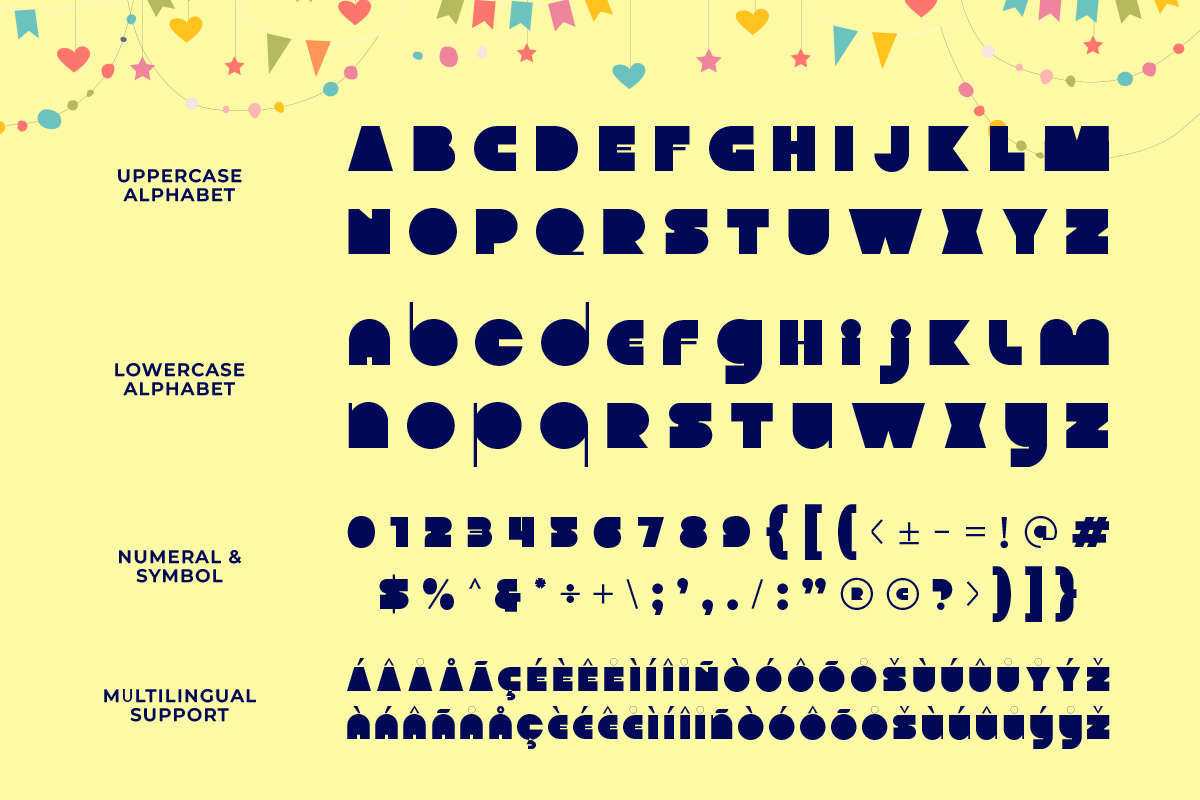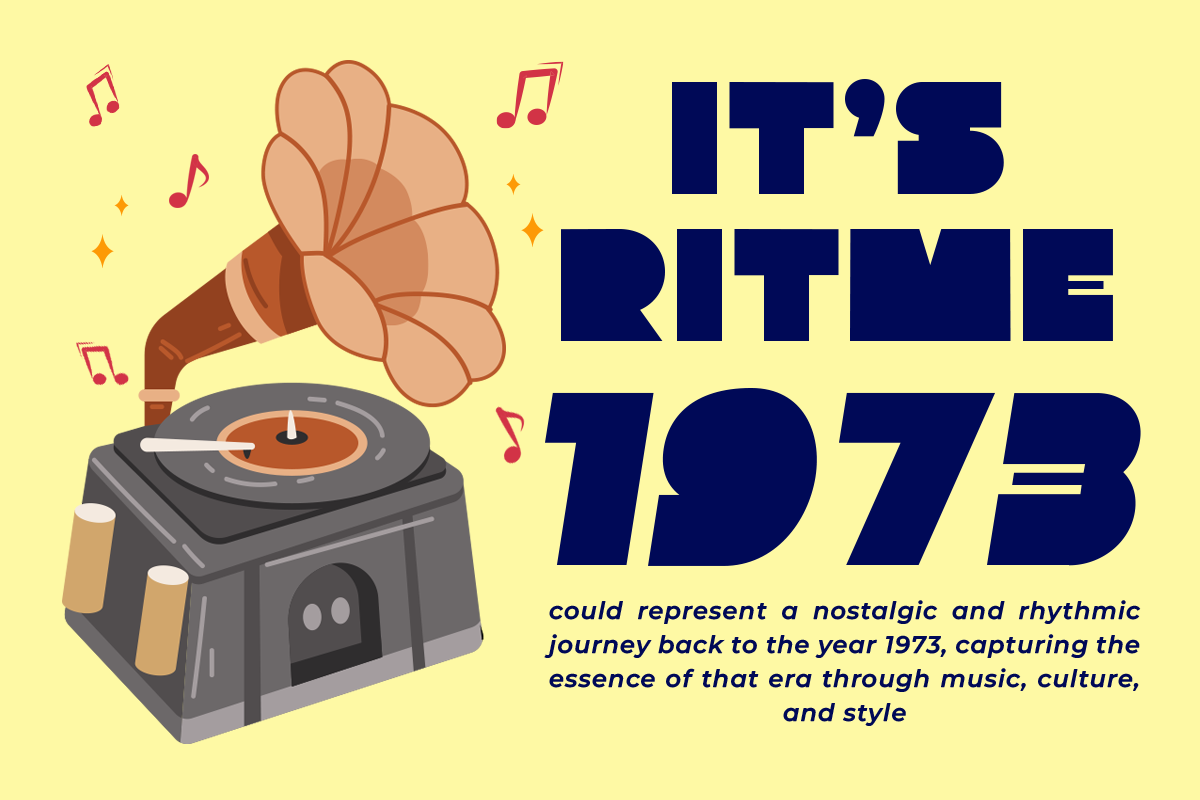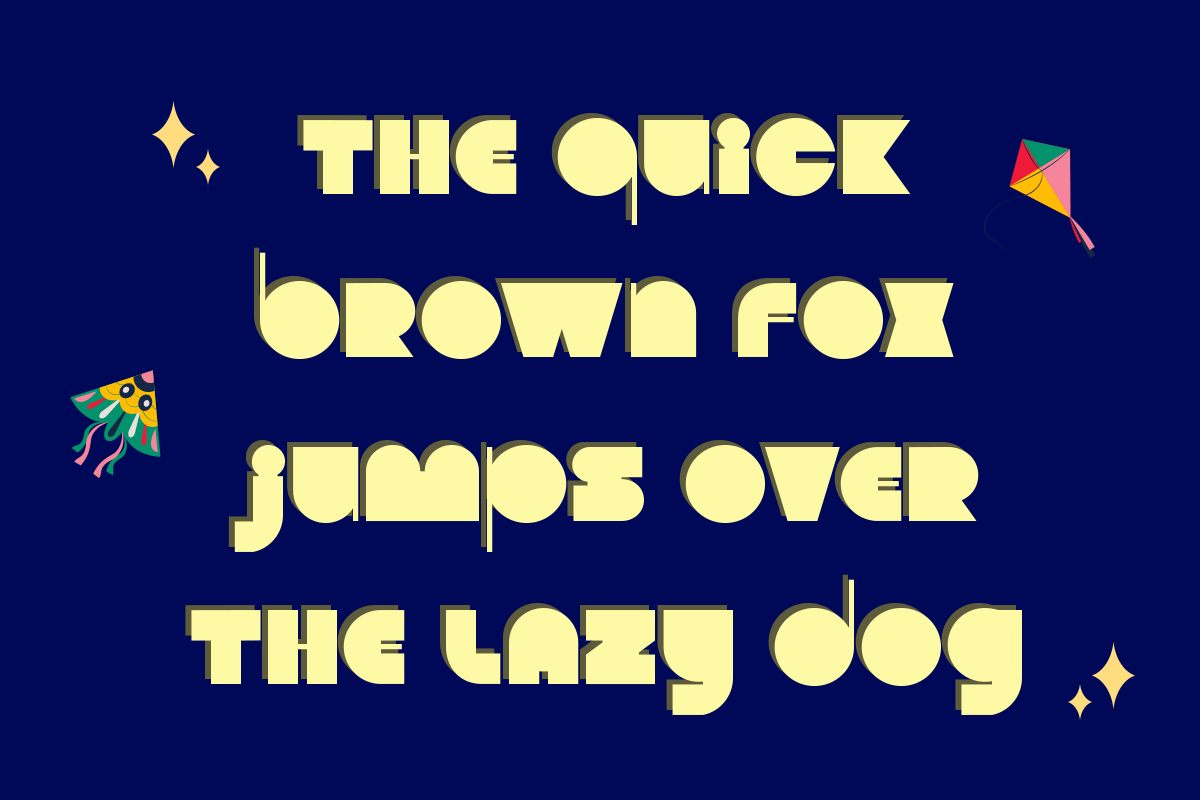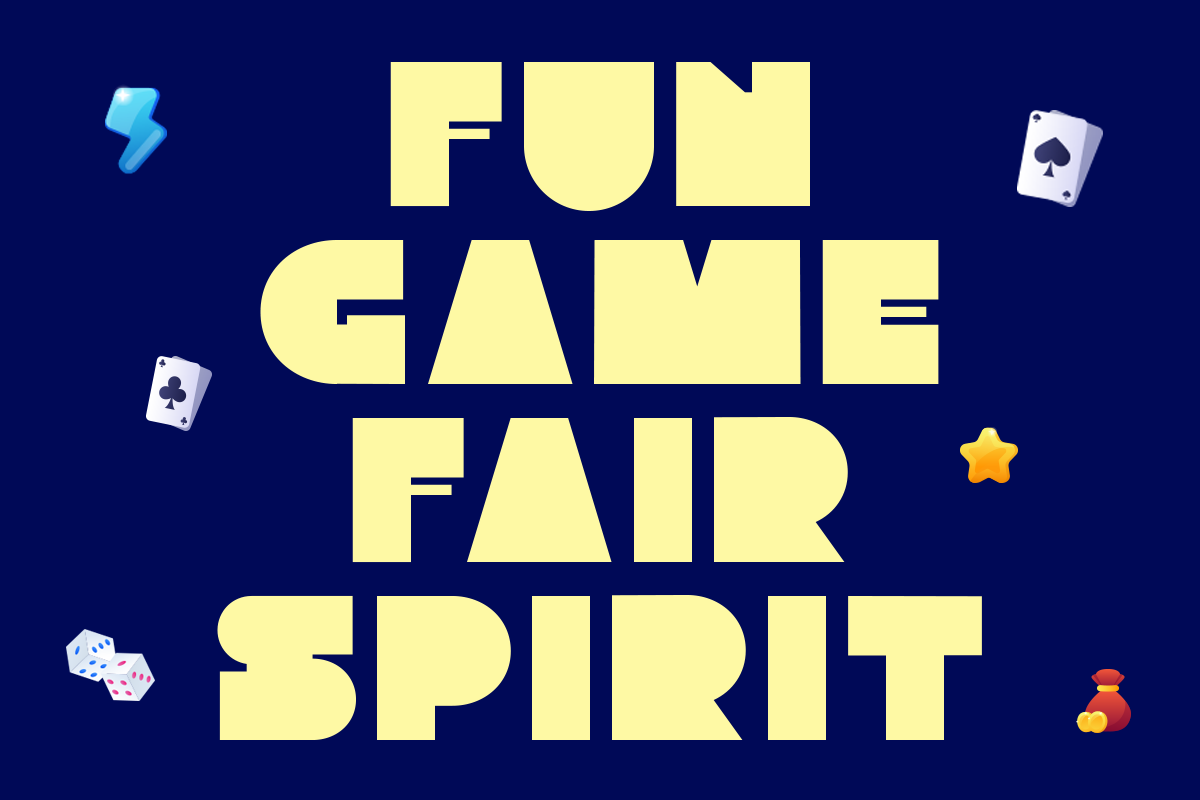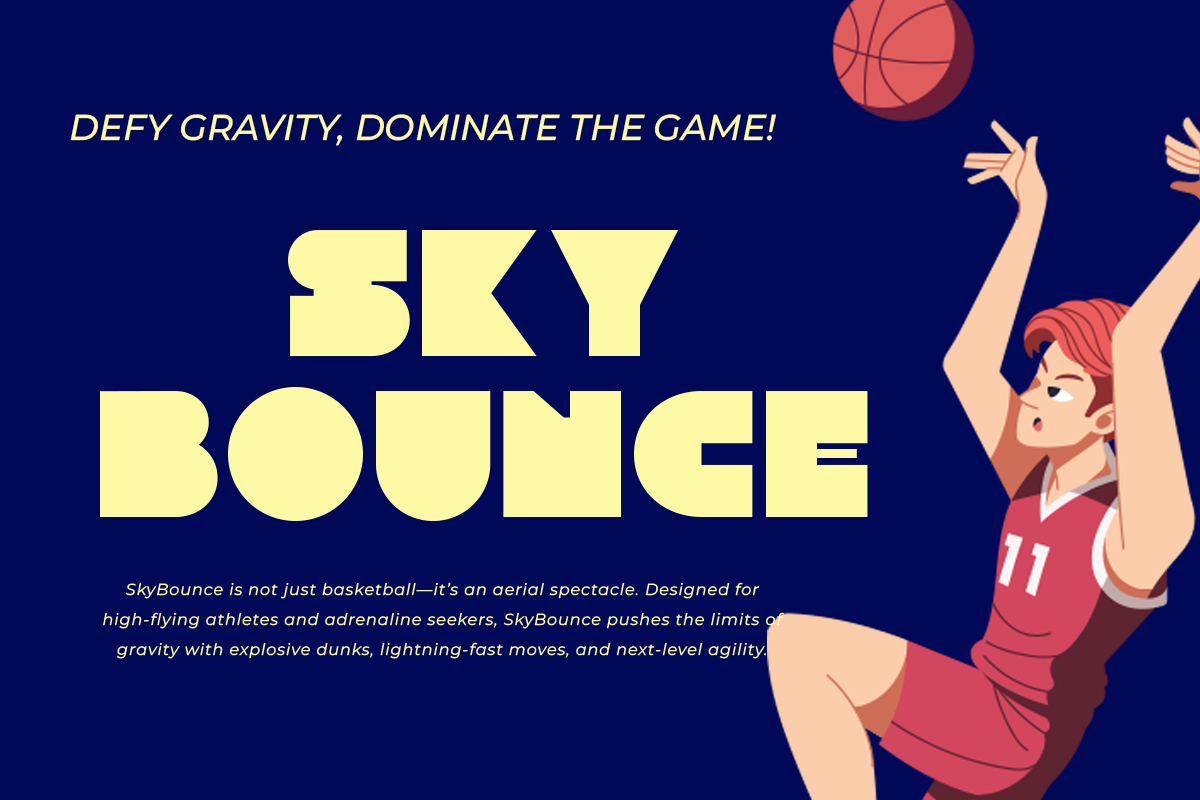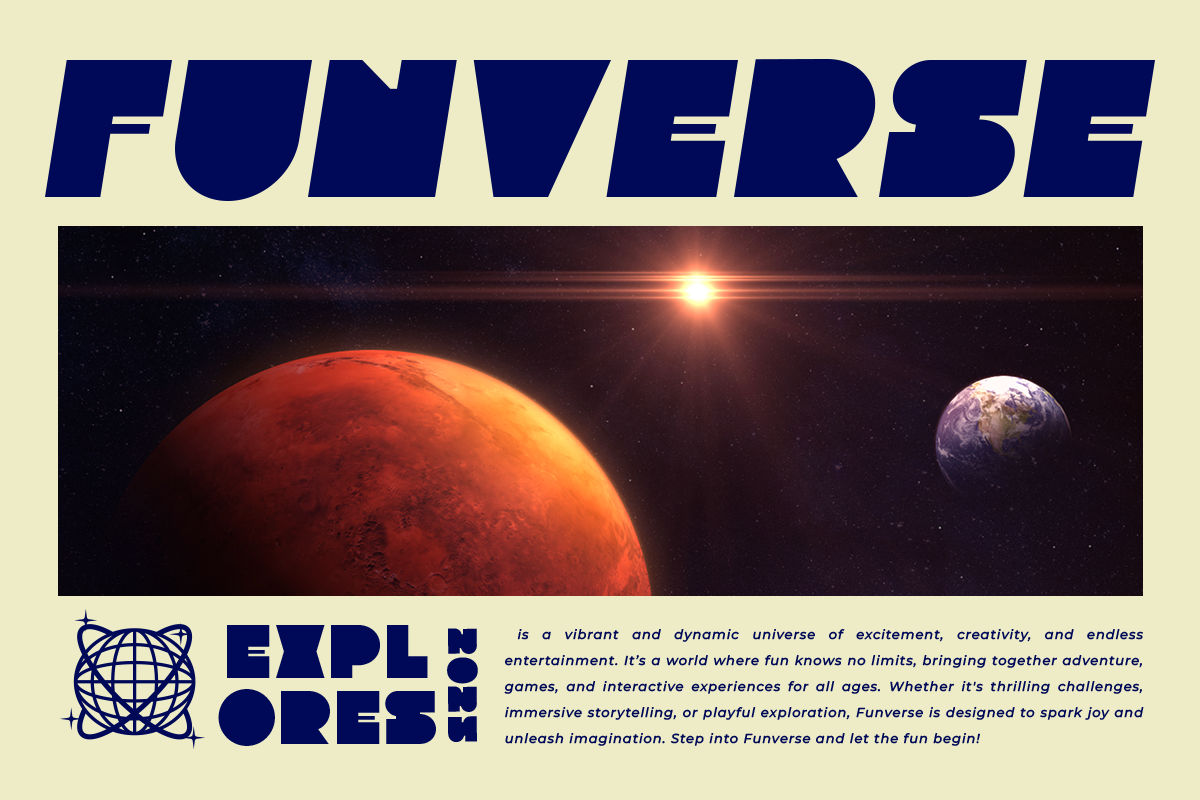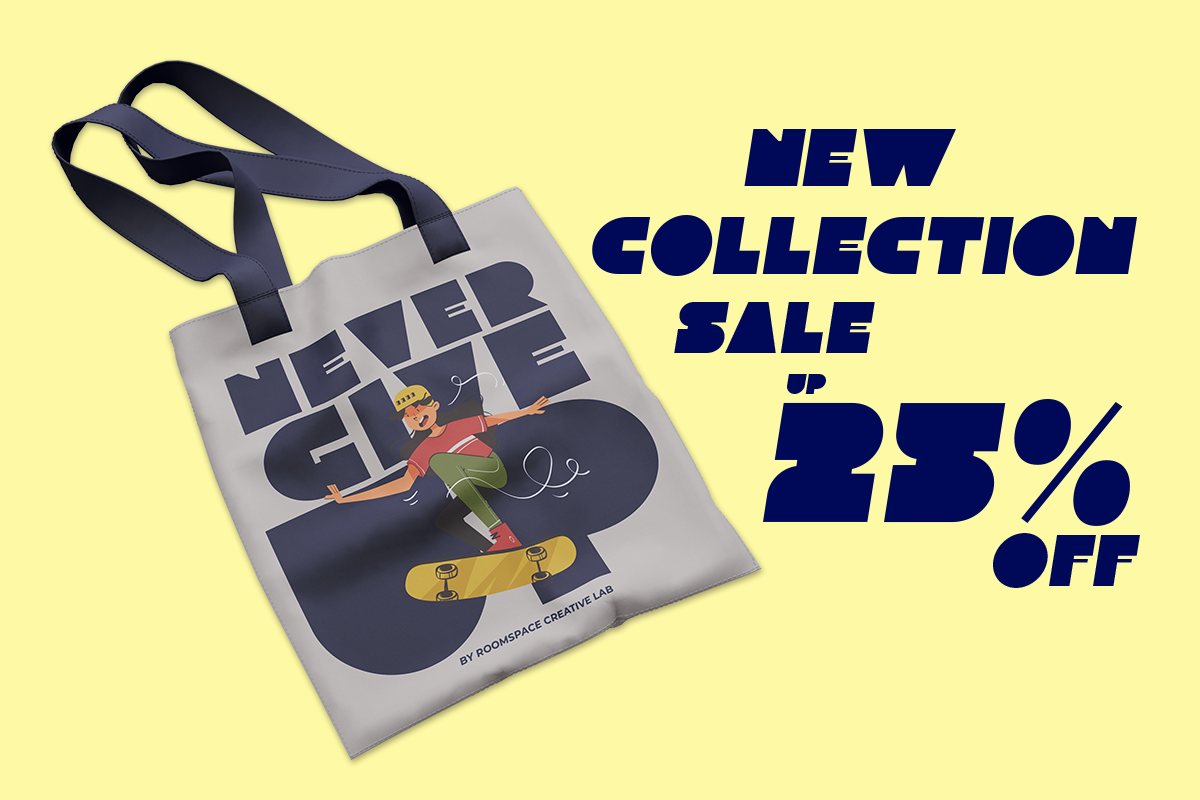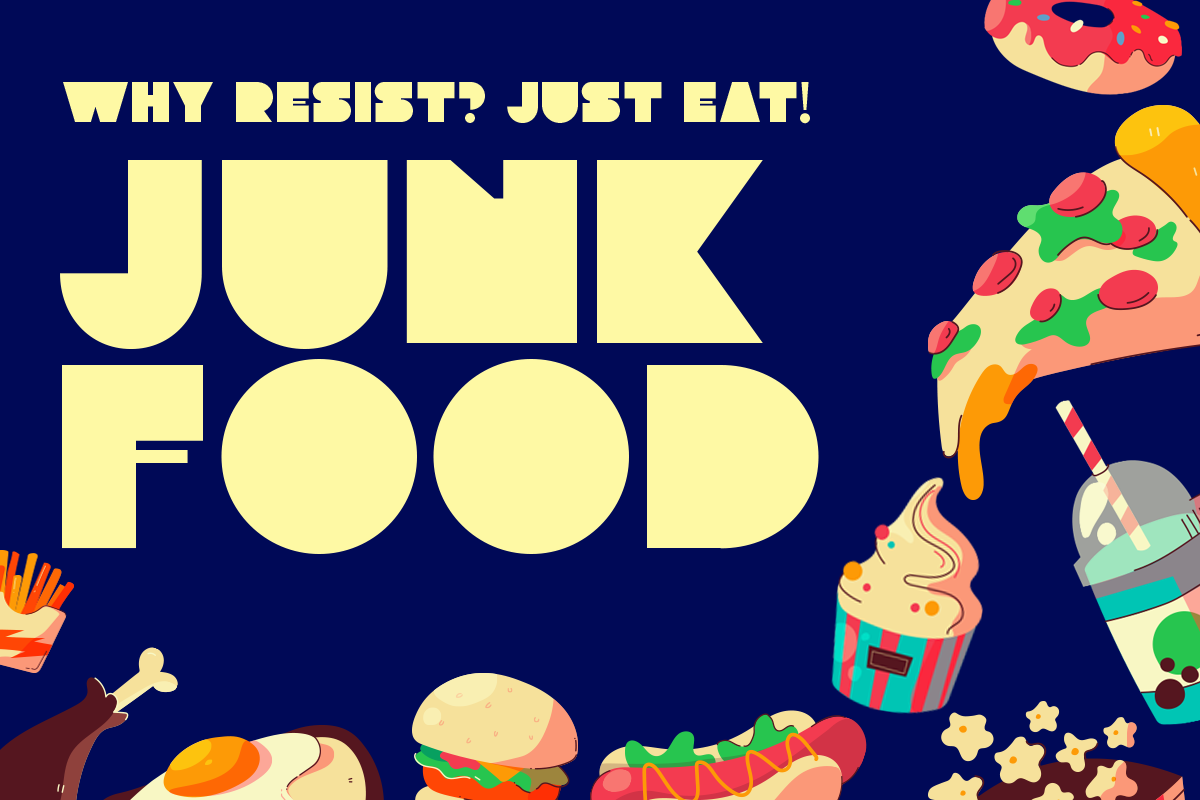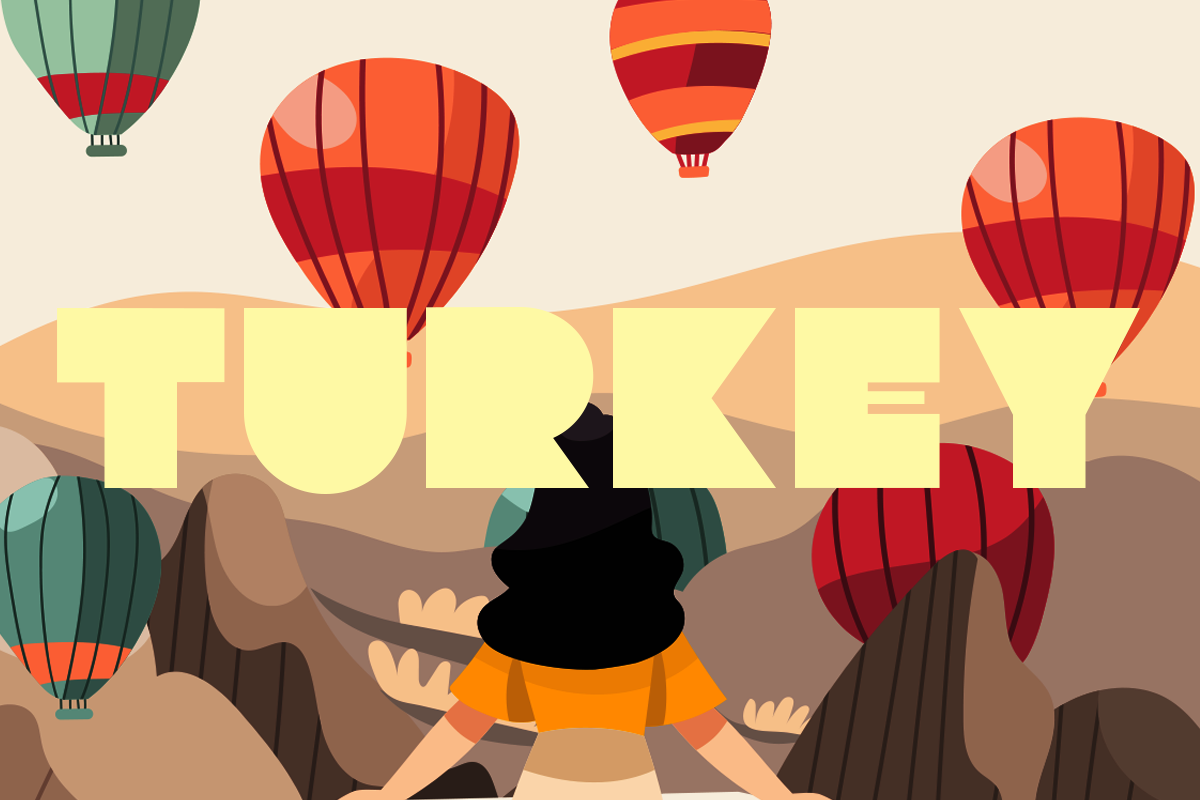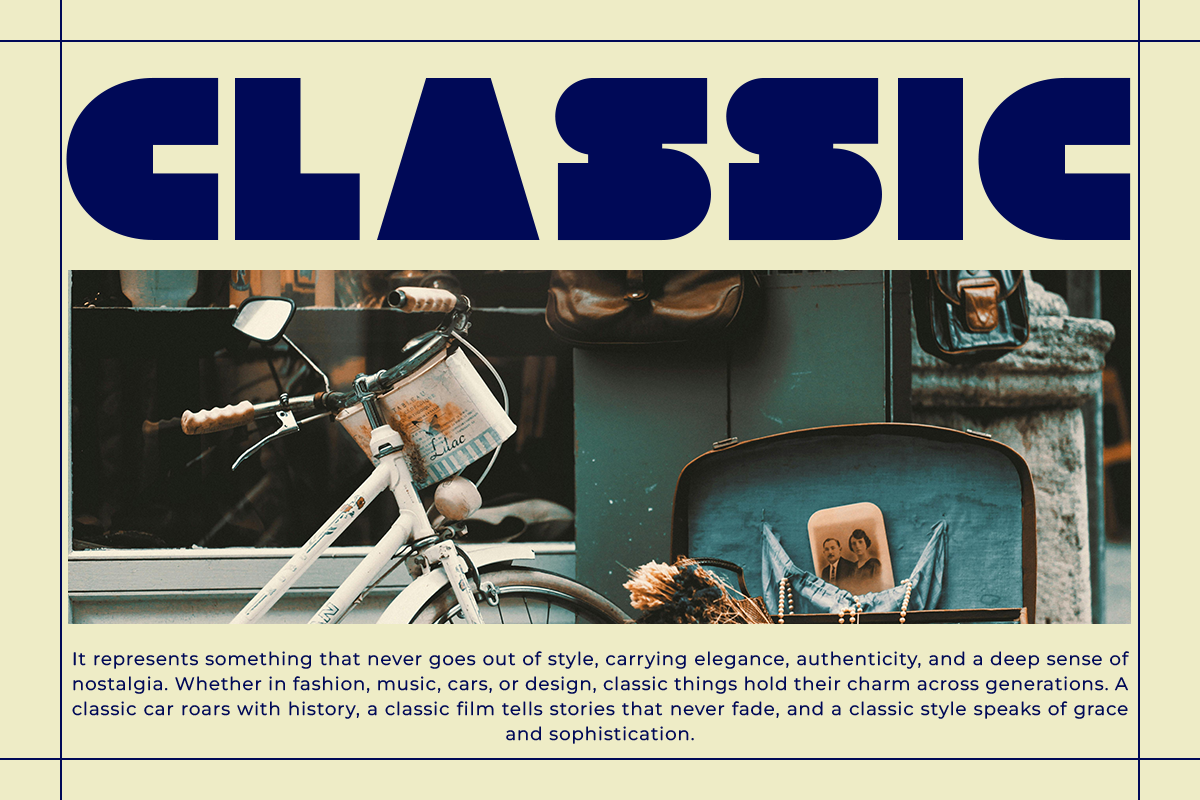
Slizo - Geometric Bold Expanded
Slizo, a bold expanded display font with a striking geometric style. Designed to stand out, Slizo is perfect for projects that demand attention—whether it’s branding, posters, album covers, sports designs, or futuristic layouts.
With its strong and wide letterforms, Slizo gives a powerful and modern aesthetic, making it a great choice for streetwear branding, tech visuals, or any creative project that needs bold typography.